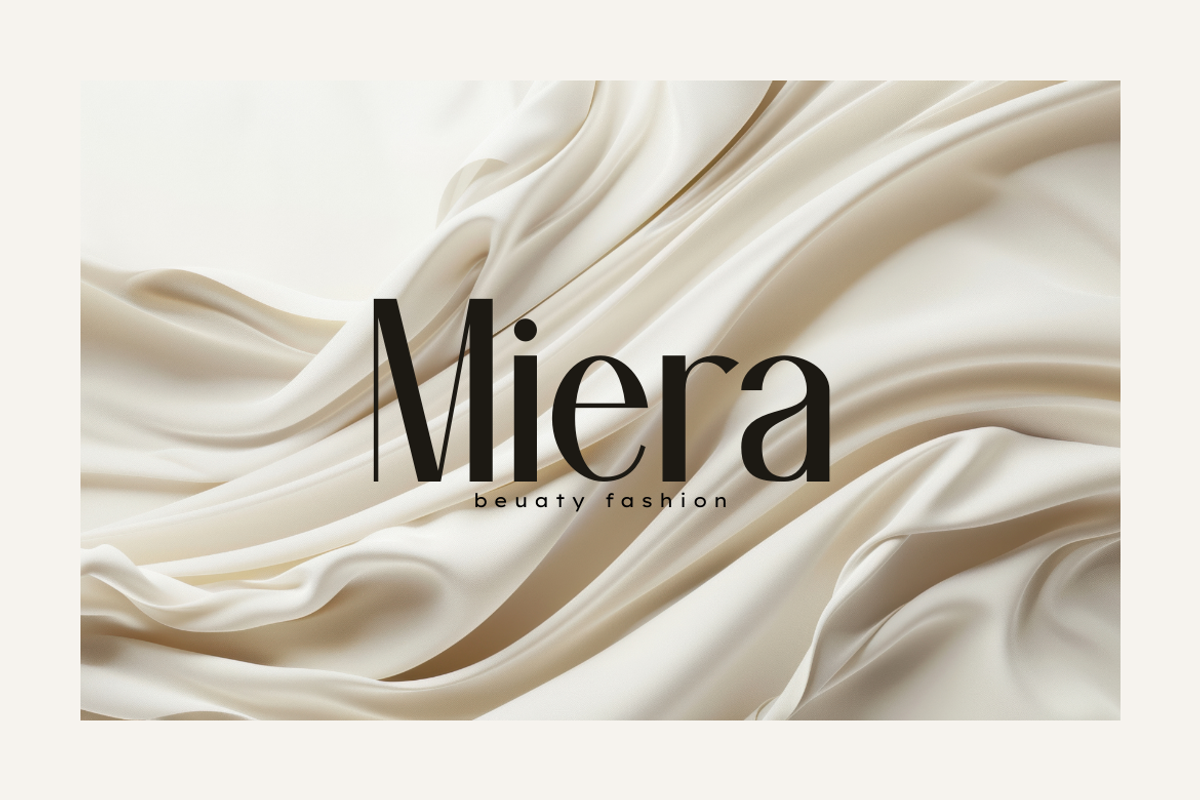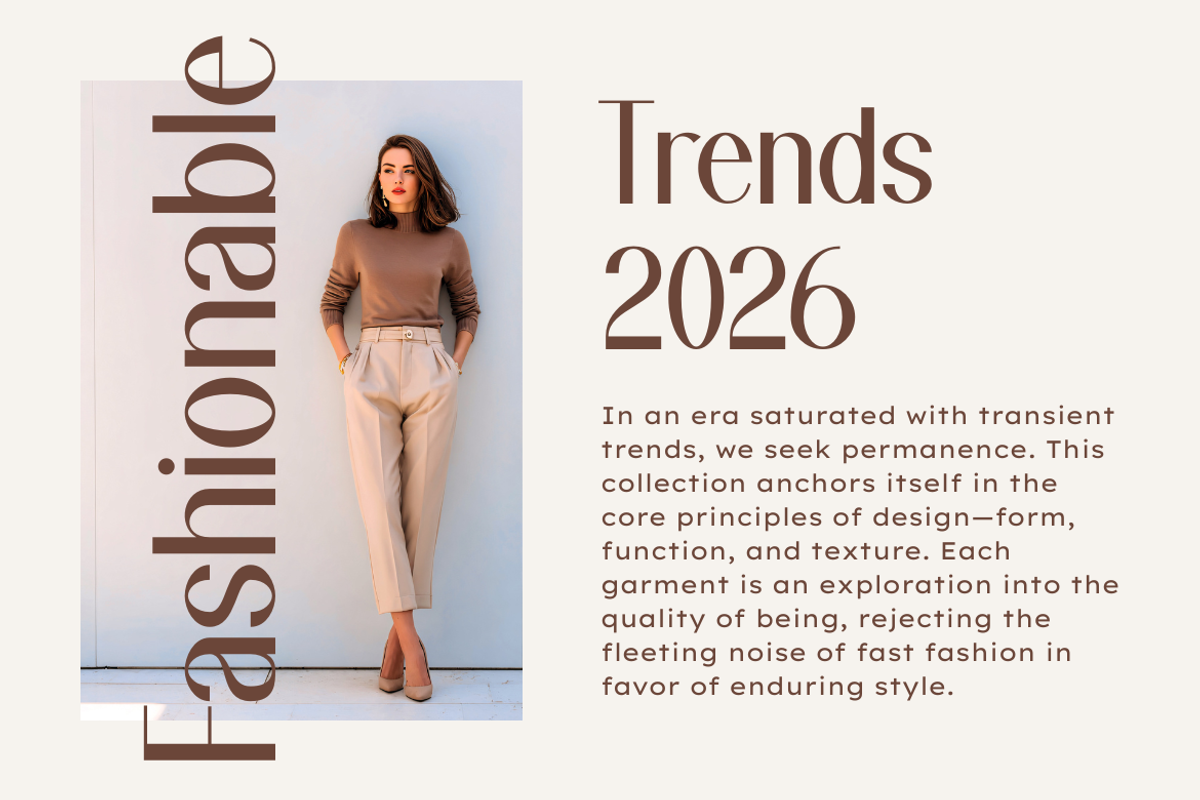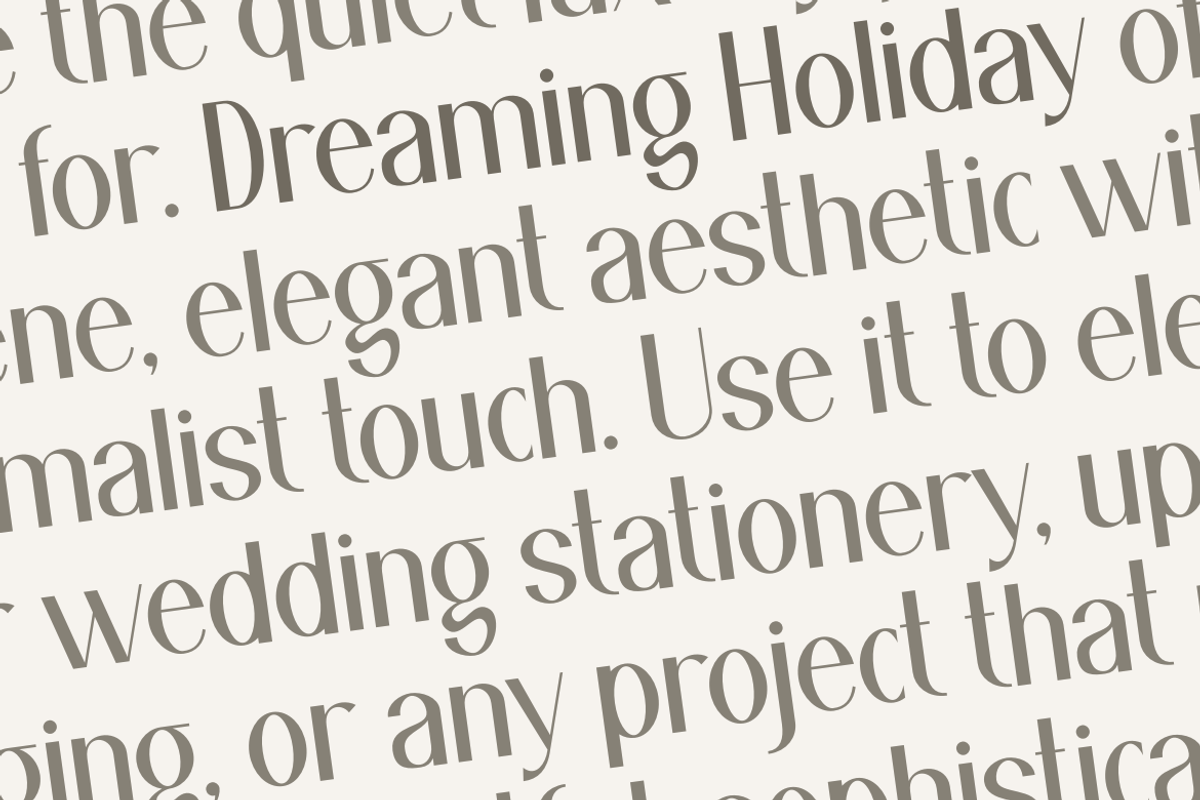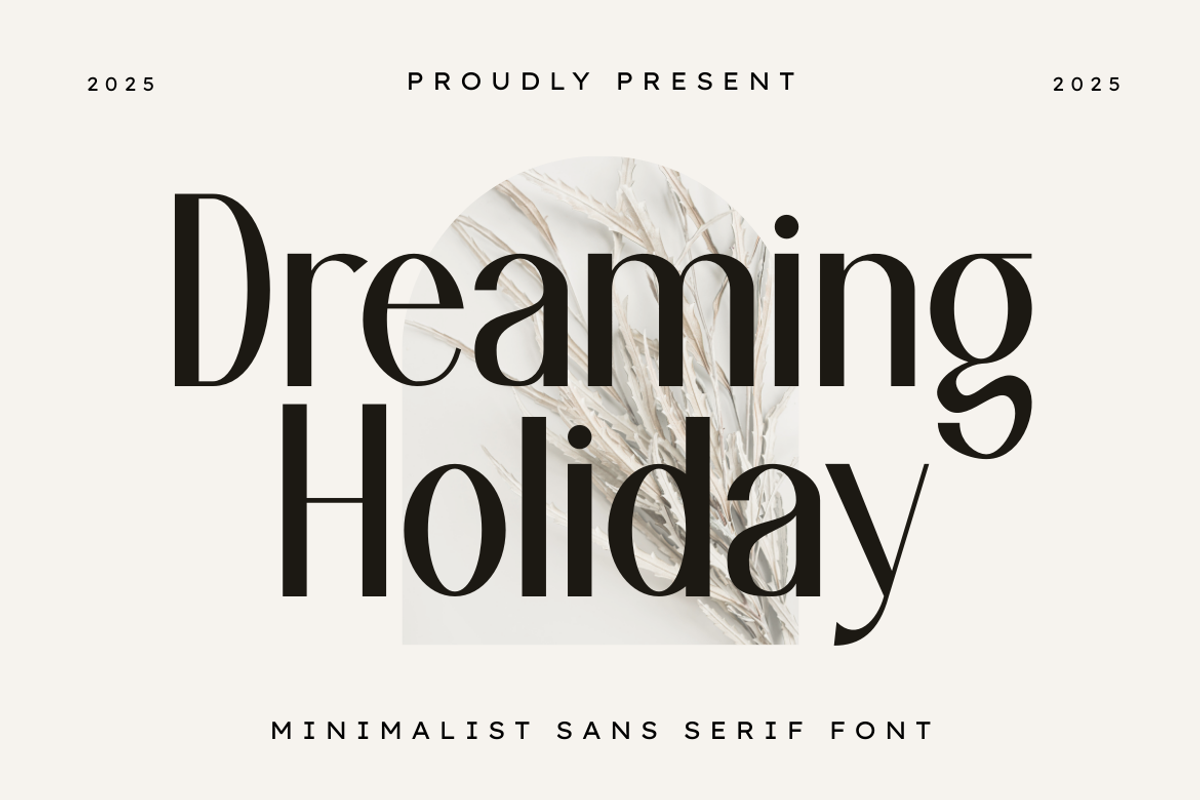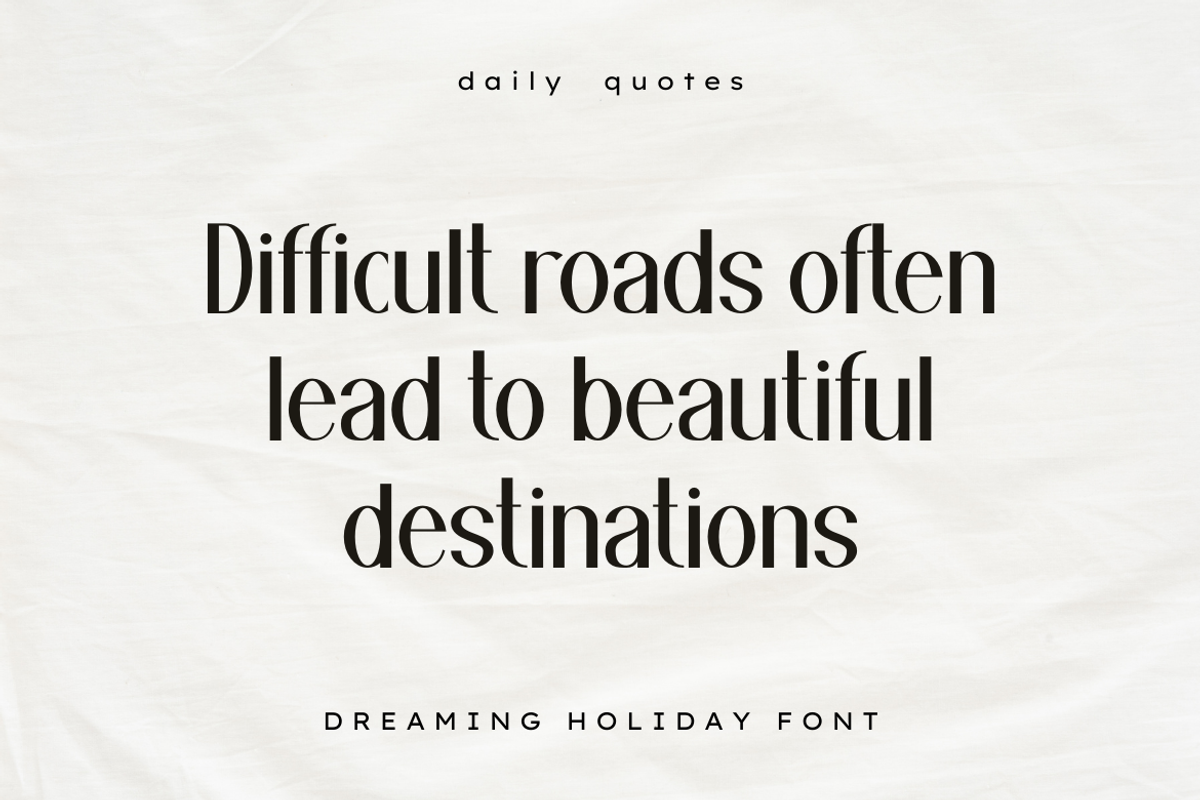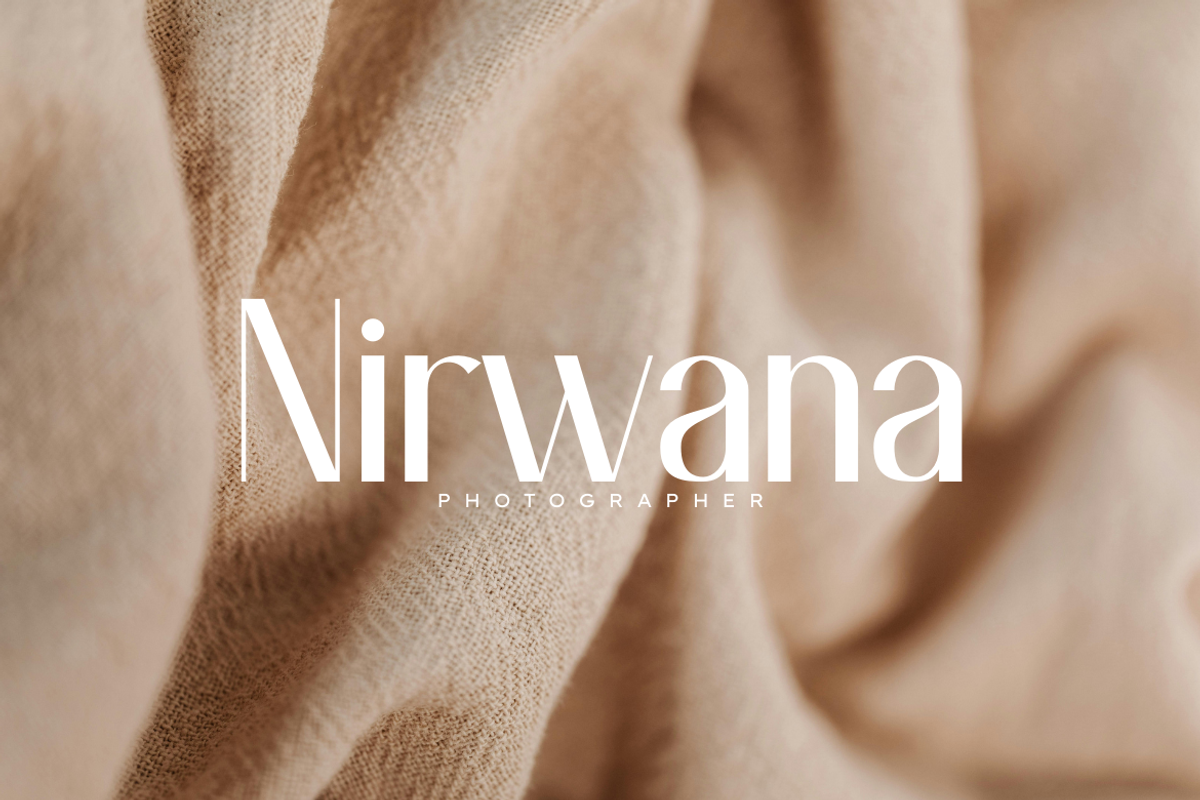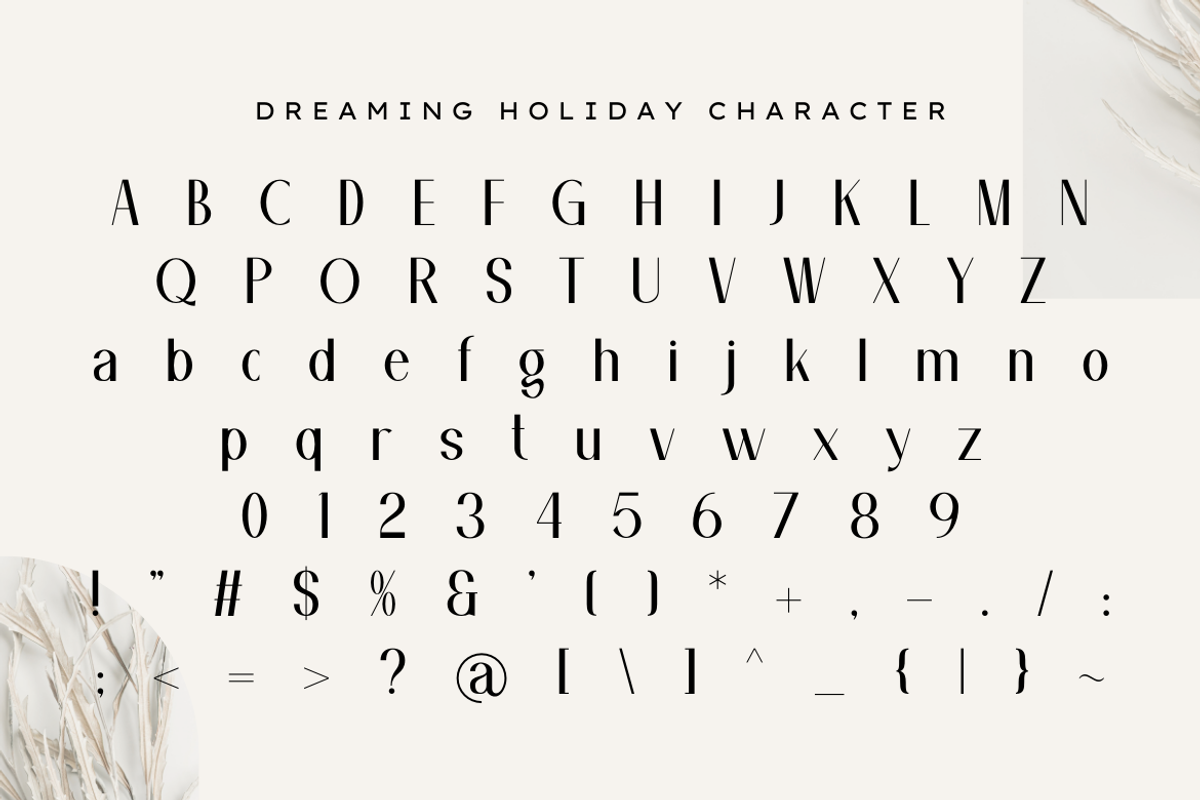
Dreaming Holiday - Minimalist Sans
Dreaming Holiday is a minimalist sans serif font with a clean, elegant, and modern personality. Designed with smooth curves and balanced letterforms, this font delivers a calm and sophisticated visual tone suitable for contemporary design needs.
Its refined simplicity makes Dreaming Holiday ideal for projects that prioritize clarity, aesthetics, and readability. The font performs beautifully across digital and print applications, offering a timeless look that feels modern without being overpowering.
Dreaming Holiday is crafted for designers who seek a versatile sans serif font that blends minimalism with elegance, making it a reliable choice for a wide range of creative and professional projects.
– branding and logo design
– websites and landing pages
– editorial and magazine layouts
– presentations and pitch decks
– social media and digital content
– posters, flyers, and print design